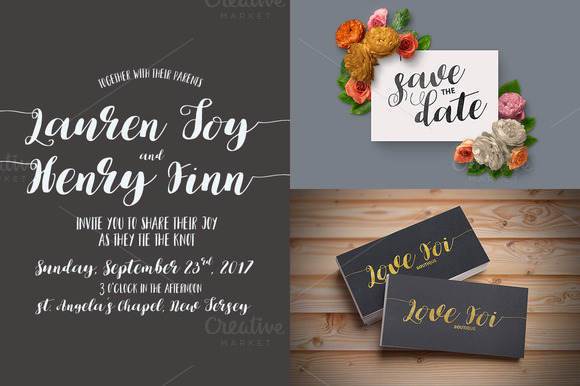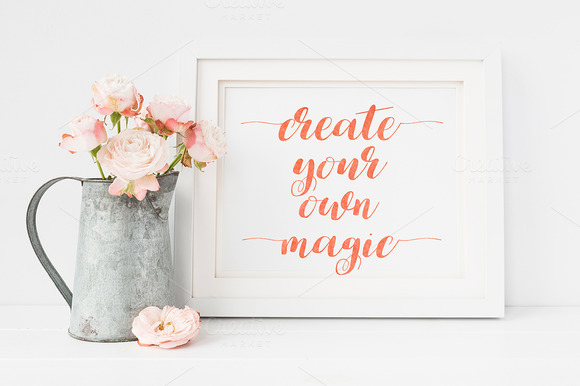
Lauren Script Font
Good news, I am very pleased to introduce to you the amazing fonts, Lauren Font designed by Medialab.
Lauren Font – a new fresh handmade calligraphy font. Very suitable for greeting cards, branding materials, business cards, quotes, posters, and more!